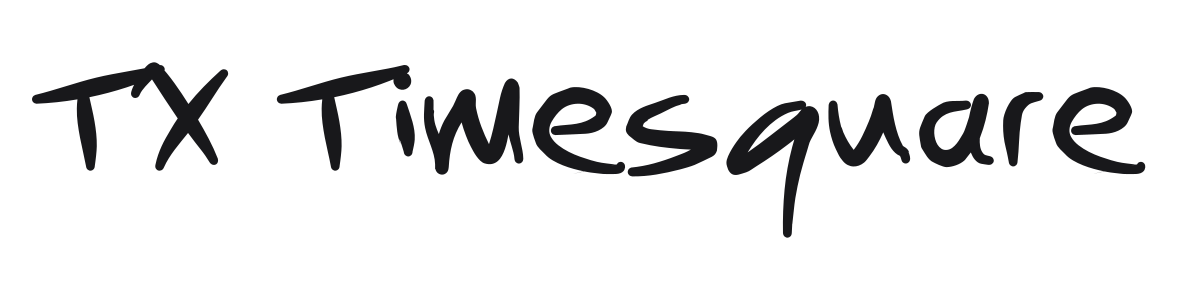
TX Timesquare
TX Timesquare is a bold handwritten face by Puey Ounjai that captures the confident, slightly uneven energy of a thick marker on paper. The strokes feel natural and unhurried, with enough weight to hold up in headlines and short display text while still reading as genuinely informal. It's the kind of lettering that works for casual branding, social media graphics, or packaging where you want something friendly and human without looking fragile.